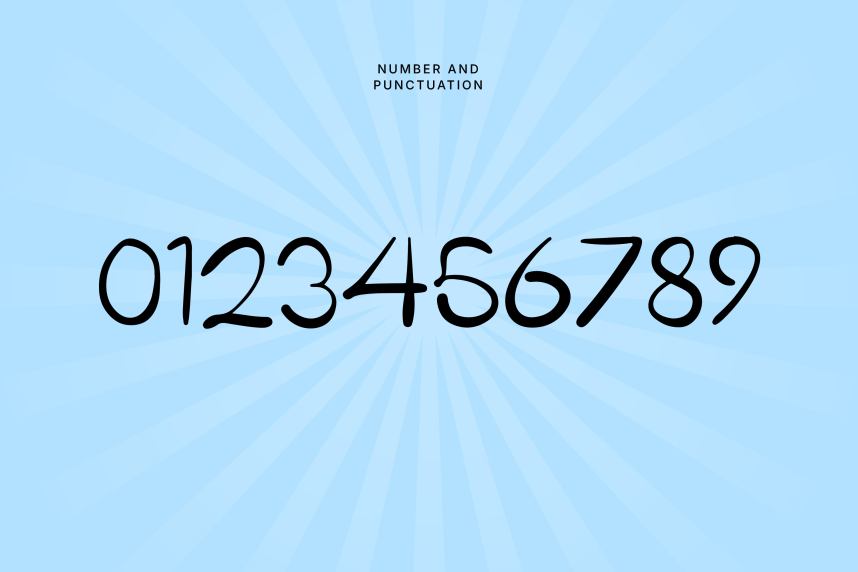
Tangan Handwritten Font is a thin, casual handwritten font with a light, natural stroke — like a quick, gentle scribble on paper. Simple and airy, it adds a friendly, personal touch wherever a human hand feels right.